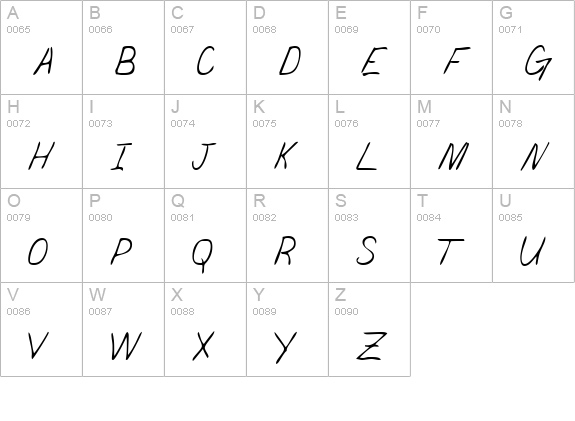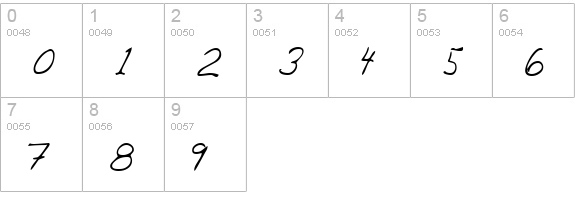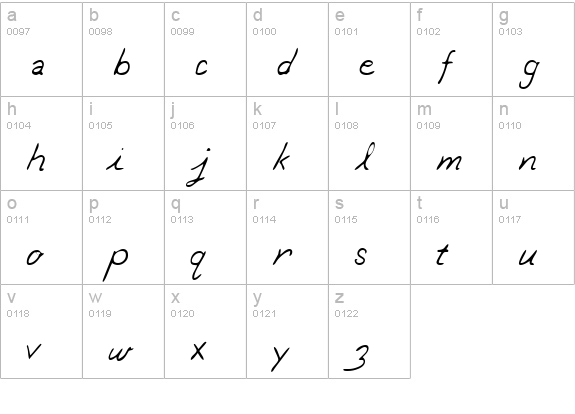
DarbysHand Regular Font Details
DarbysHand Regular is the standard, neutral variant in the DarbysHand typeface family \xE2\x80\x94 well suited to general body text, paragraphs, and standard typographic work.
DarbysHand Regular font is a charming and versatile typeface that exudes a sense of elegance and playfulness. With its smooth curves and unique letterforms, this font is perfect for adding a touch of personality to any design project. Whether you're creating invitations, logos, or branding materials, DarbysHand Regular will surely make your text stand out. What makes DarbysHand Regular even more appealing is that it is available for free download at FontsMarket.com. This means you can easily access this beautiful font and use it in your projects without any cost. Don't miss out on the opportunity to enhance your designs with the delightful DarbysHand Regular font today!